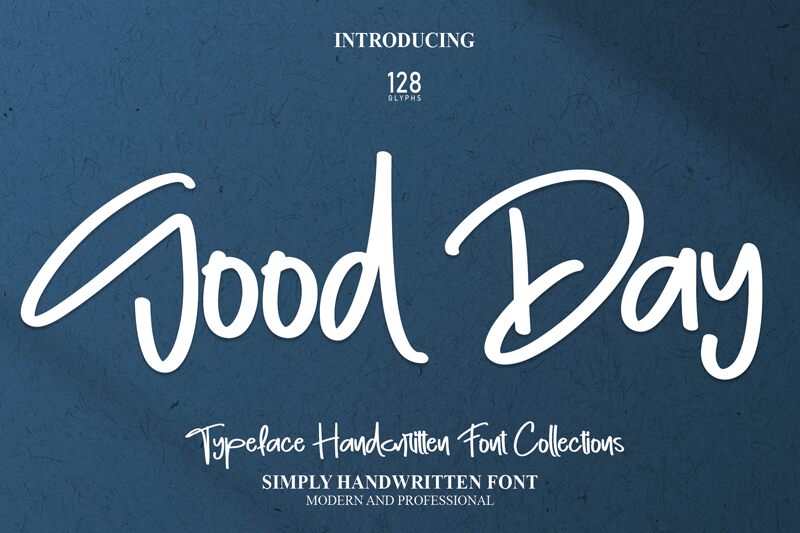
Good Day
Good Day, a charming handwritten font by Scratchones, adds a touch of elegance to your projects. With its semi-light weight, it exudes a warm and inviting vibe.
Perfect for greeting cards, wedding invitations, and social media graphics, this font effortlessly captures attention. Whether you're designing a whimsical children's book cover or crafting a personalized logo for a boutique café, Good Day's delightful curves and unique character will infuse your creations with personality and flair.
Get ready to make every day feel like a celebration with the versatile Good Day font!
Perfect for greeting cards, wedding invitations, and social media graphics, this font effortlessly captures attention. Whether you're designing a whimsical children's book cover or crafting a personalized logo for a boutique café, Good Day's delightful curves and unique character will infuse your creations with personality and flair.
Get ready to make every day feel like a celebration with the versatile Good Day font!